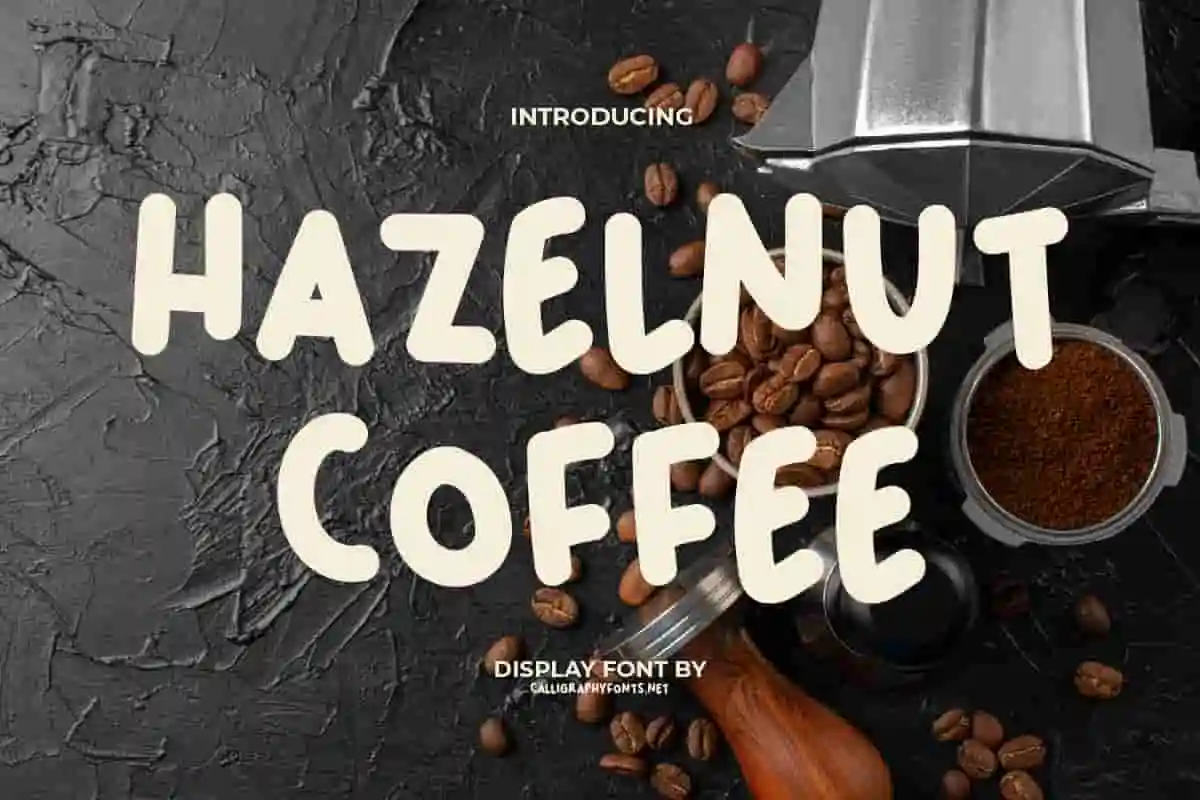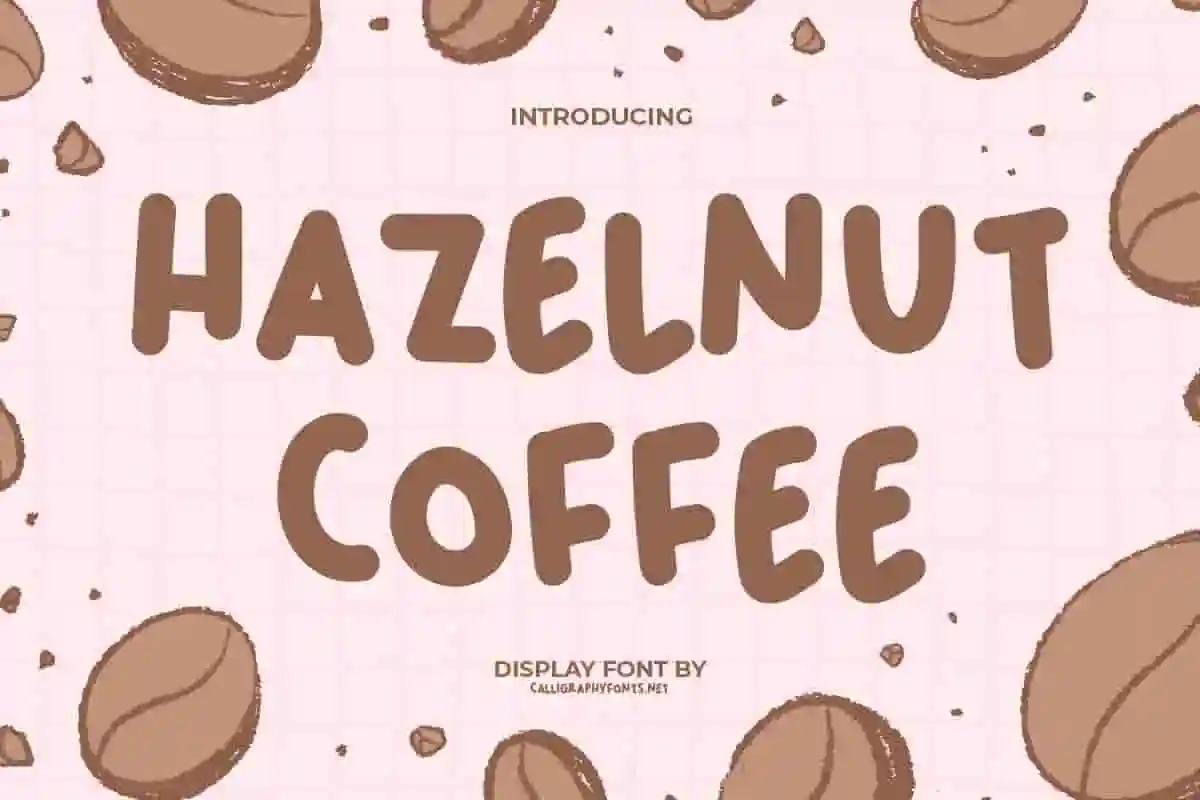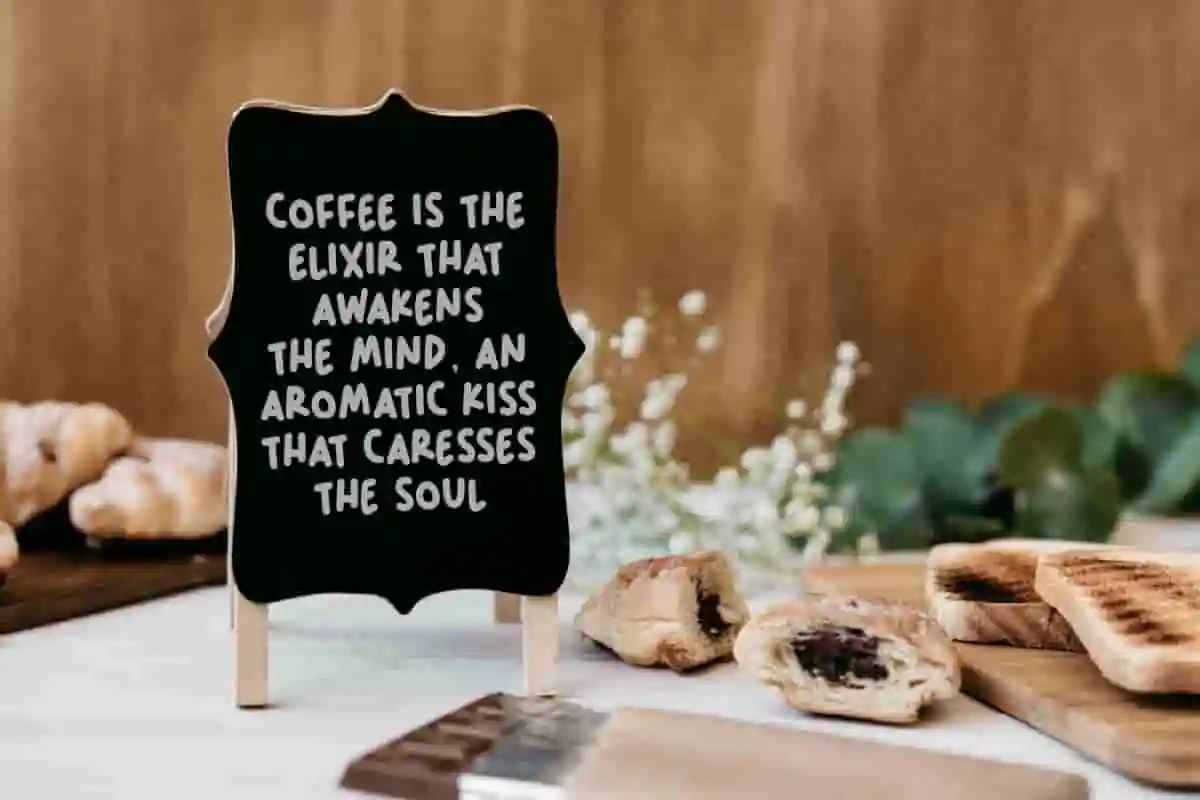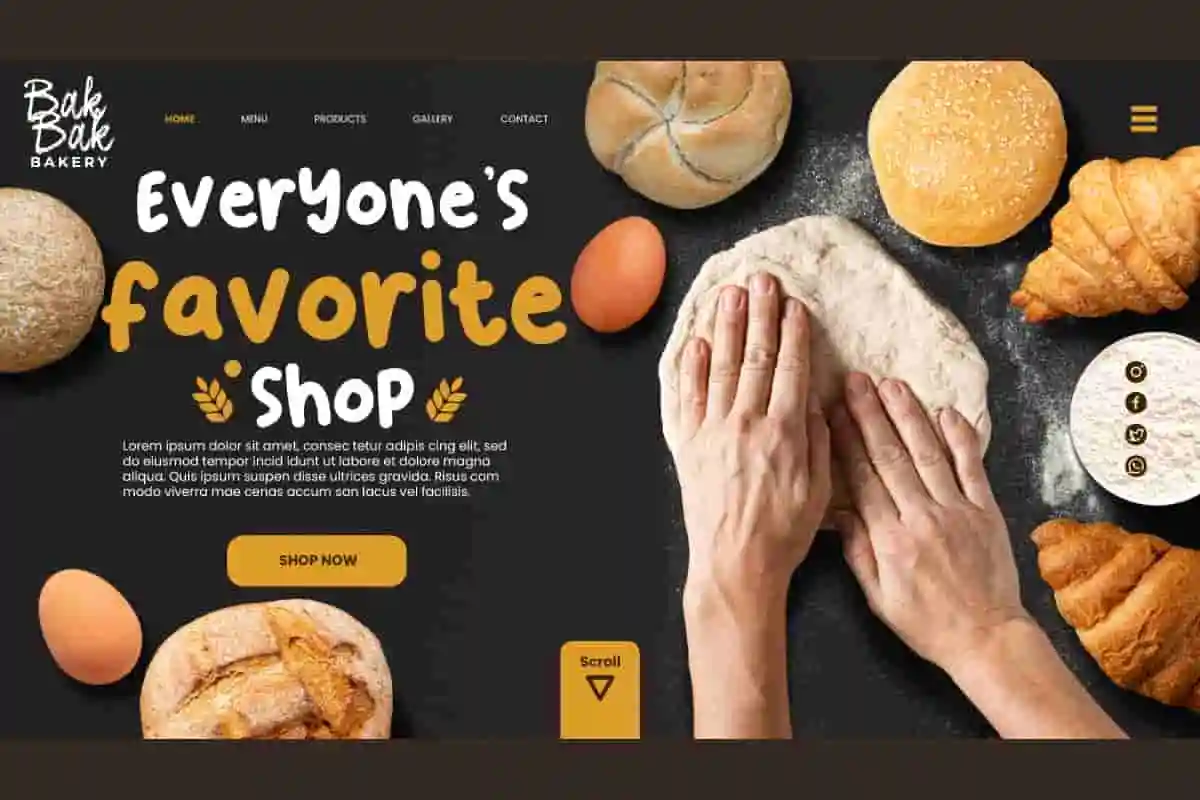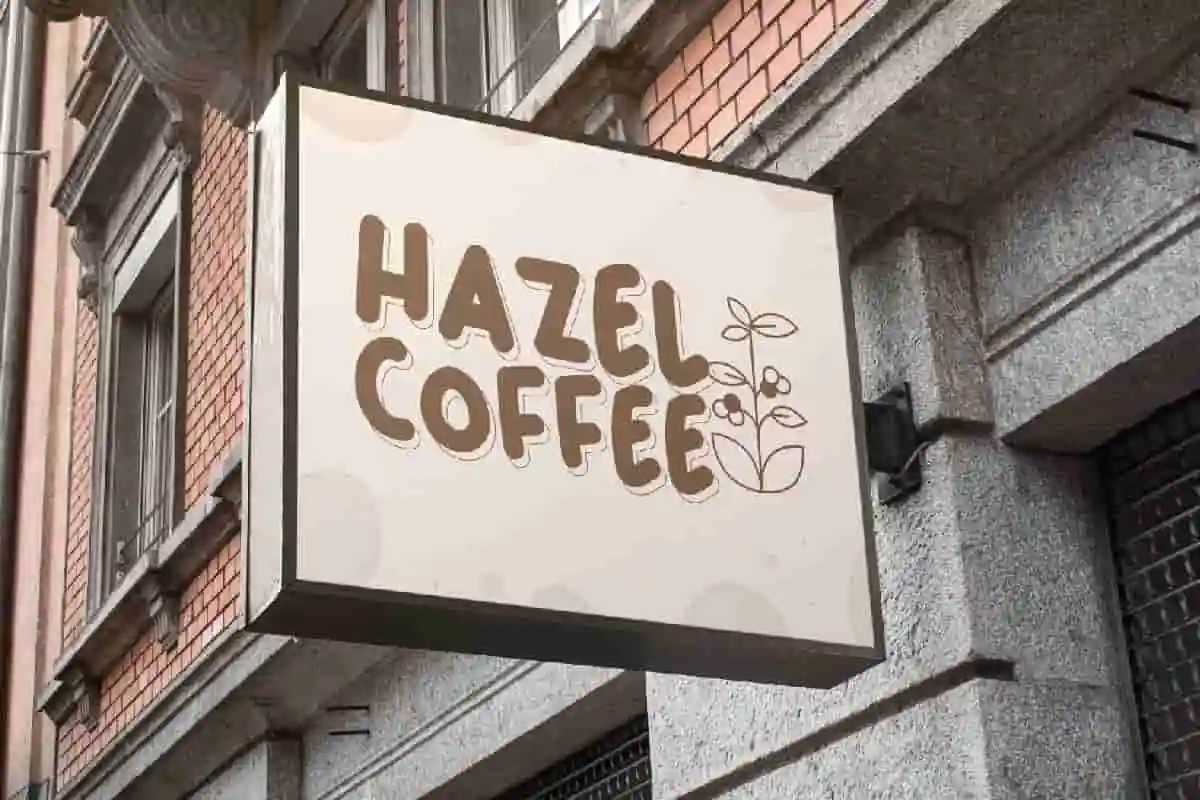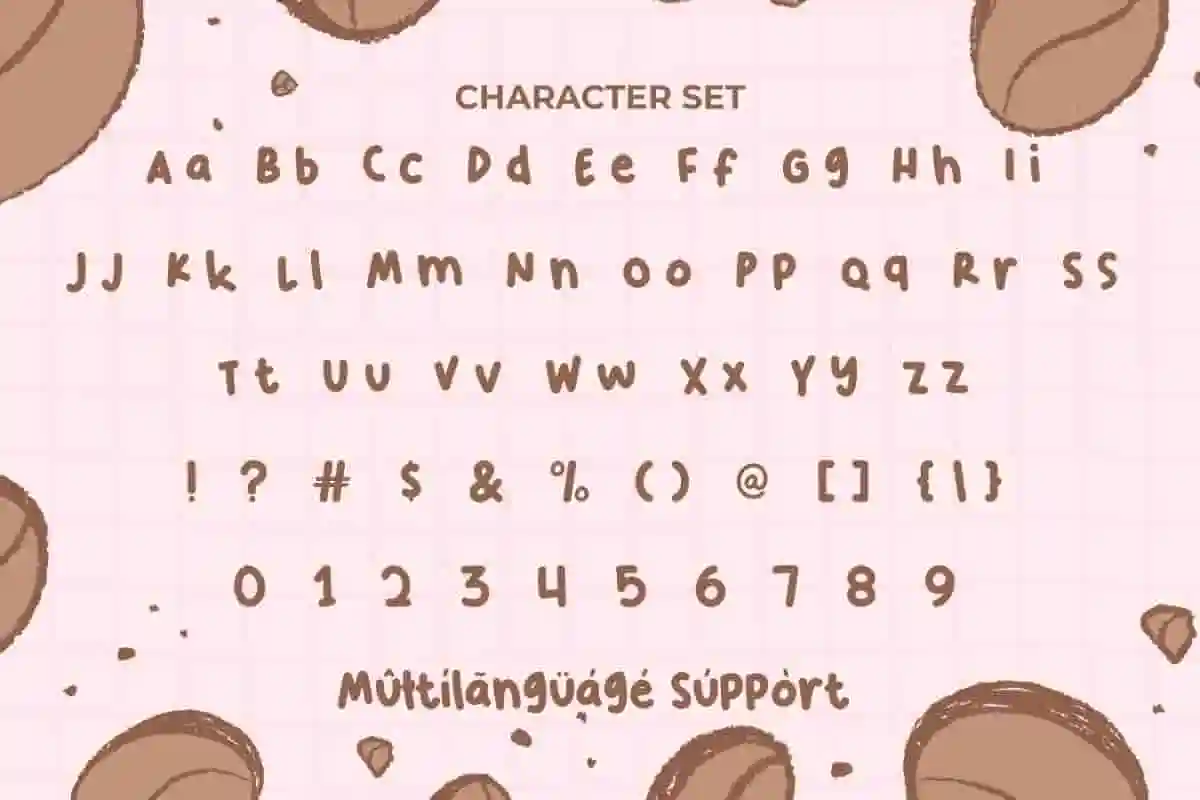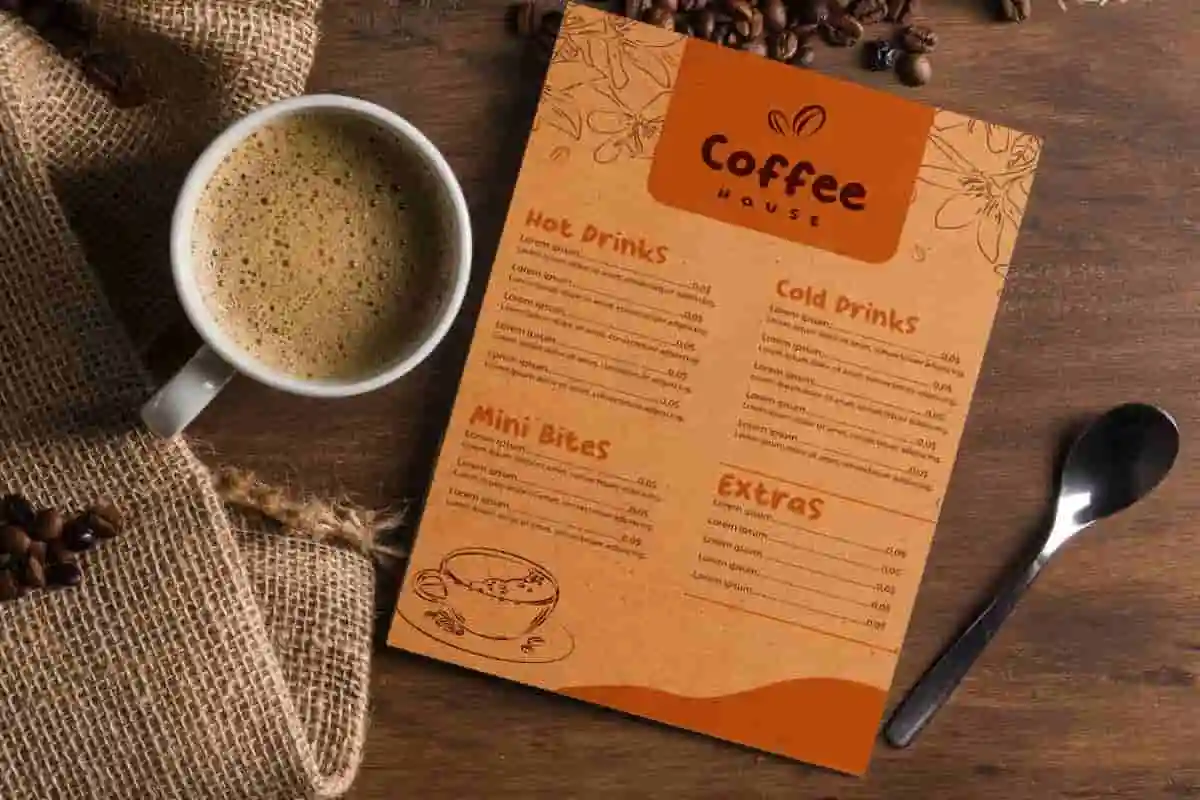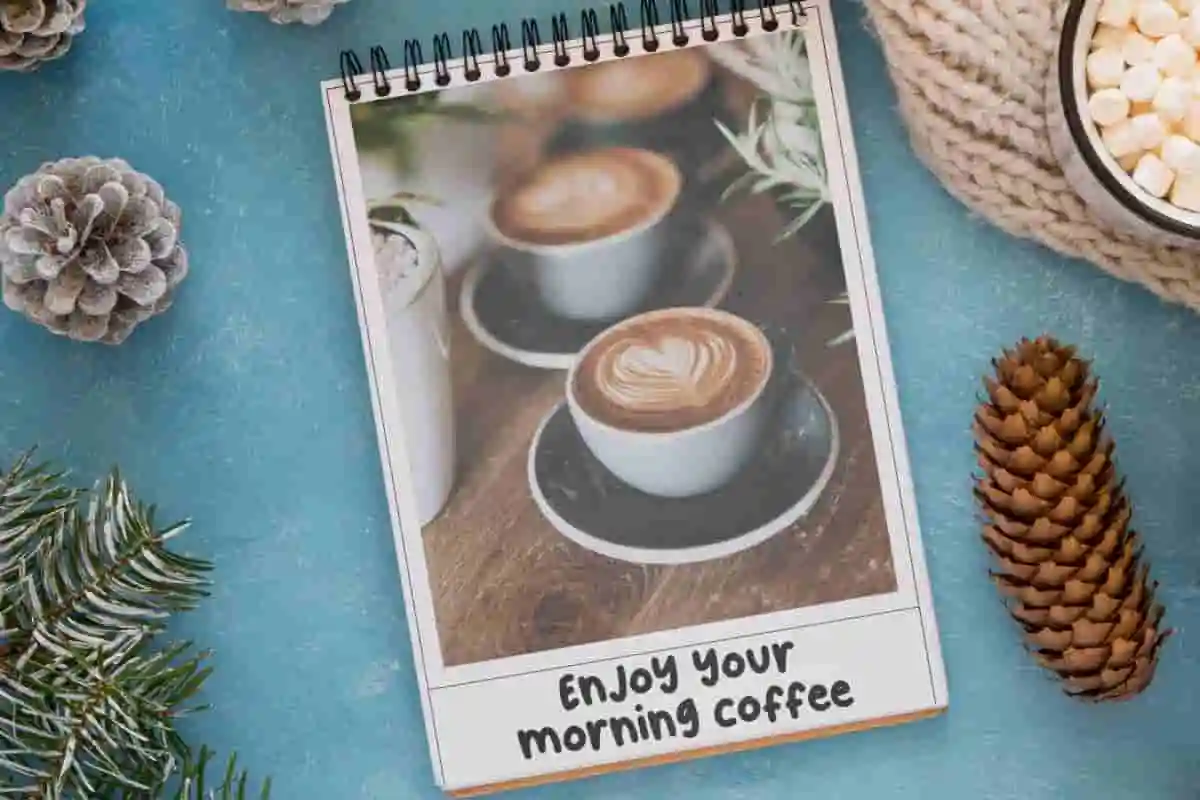
Hazelnut Coffee Display Font
Hazelnut Coffee Font is a fun comic with a cute and playful bubbly display font inspired from delicious coffee. It will communicate your brand easily!
Hazelnut Coffee Font is a fun comic with a cute and playful bubbly display font inspired from delicious coffee. This font is perfect for apps, banners, blogs, branding, covers, flyer, headers, logos, menu board, mugs, poster, quotes, signage, social media post, stationery, stickers, titles, and more!
Looking for a font that blends charm, character, and creativity in one perfect cup? Meet Hazelnut Coffee – a handcrafted display font that’s as rich and warm as your favorite morning brew. Perfect for branding, logos, packaging, quotes, and social media content, Hazelnut Coffee is your secret ingredient for standing out. With its bold strokes and smooth curves, this coffee-inspired typeface brings a cozy, artisanal touch to every design project.
Designed for logos, branding, social media graphics, packaging, and advertising, this coffee-inspired display font blends playful charm with professional impact. Whether you’re designing for a small business, a trendy café, or a personal project, Hazelnut Coffee brings personality and polish in every letter.
Inspired by cozy mornings and artisanal charm, Hazelnut Coffee Display Font blends a handcrafted look with clean readability — making it the perfect choice for branding, product packaging, cafe menus, social media, and more.
- Complete set of uppercase
- Perfect for logos
Hazelnut Coffee Font is a bold and cheerful display font made a bit messy, this fluffy handcrafted letterform creates a solid and expressive font look. Perfect for ads, animation, bakery, cafes, creator content, culinary, food court, food vlogger, graphic design, handicrafts, photography, restaurant, and many other things.
Hazelnut Coffee Font comes with a complete set of Uppercase and lowercase Basic Characters, Number, a large range of Punctuation and Symbol. It is supported with multilingual characters and ready to use both on Windows machine or Mac with simple installations. It’s tested to work well in the Adobe Apps (Illustrator, Adobe InDesign, Adobe Photoshop) CorelDraw, and others. PUA Encode Characters means you can access all the characters easily – Fully accessible without additional design software.